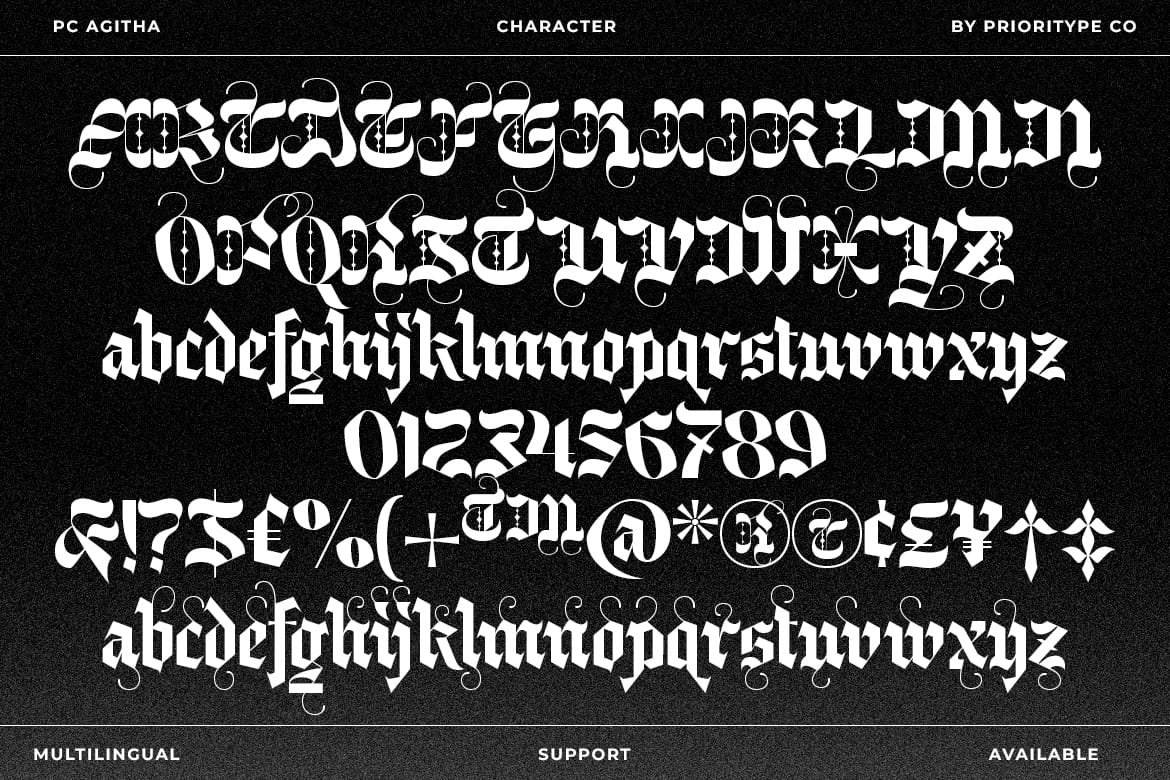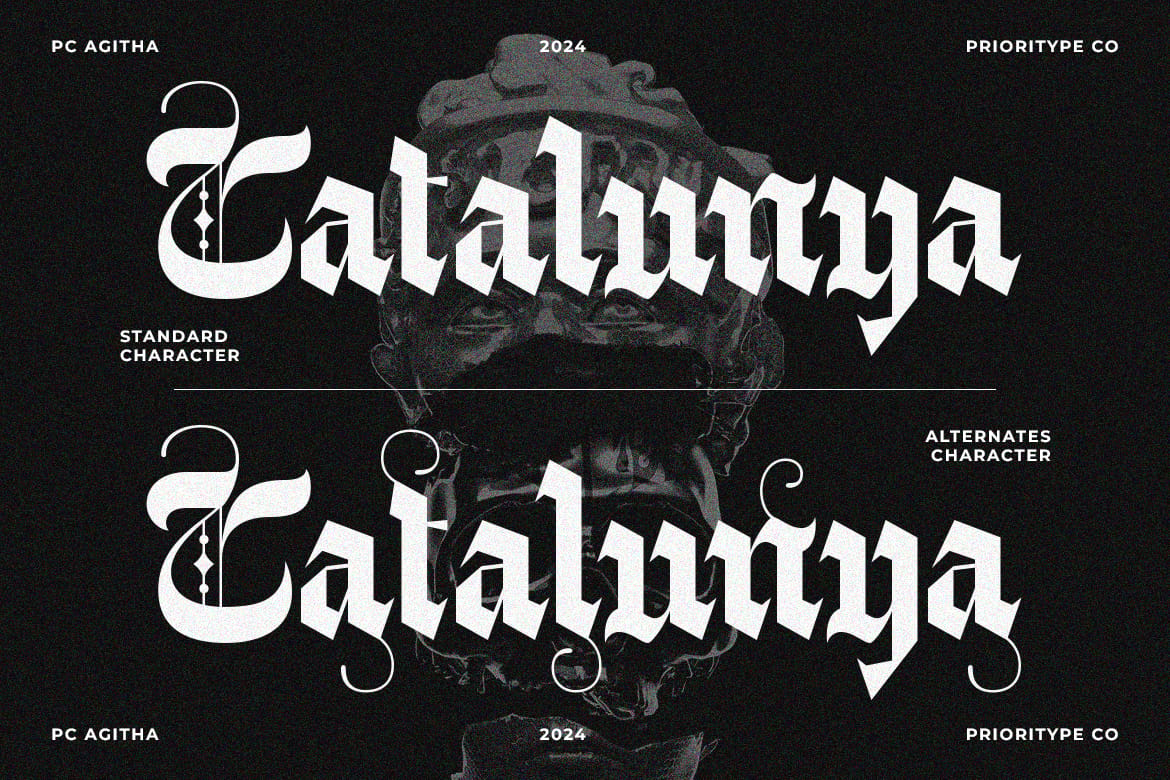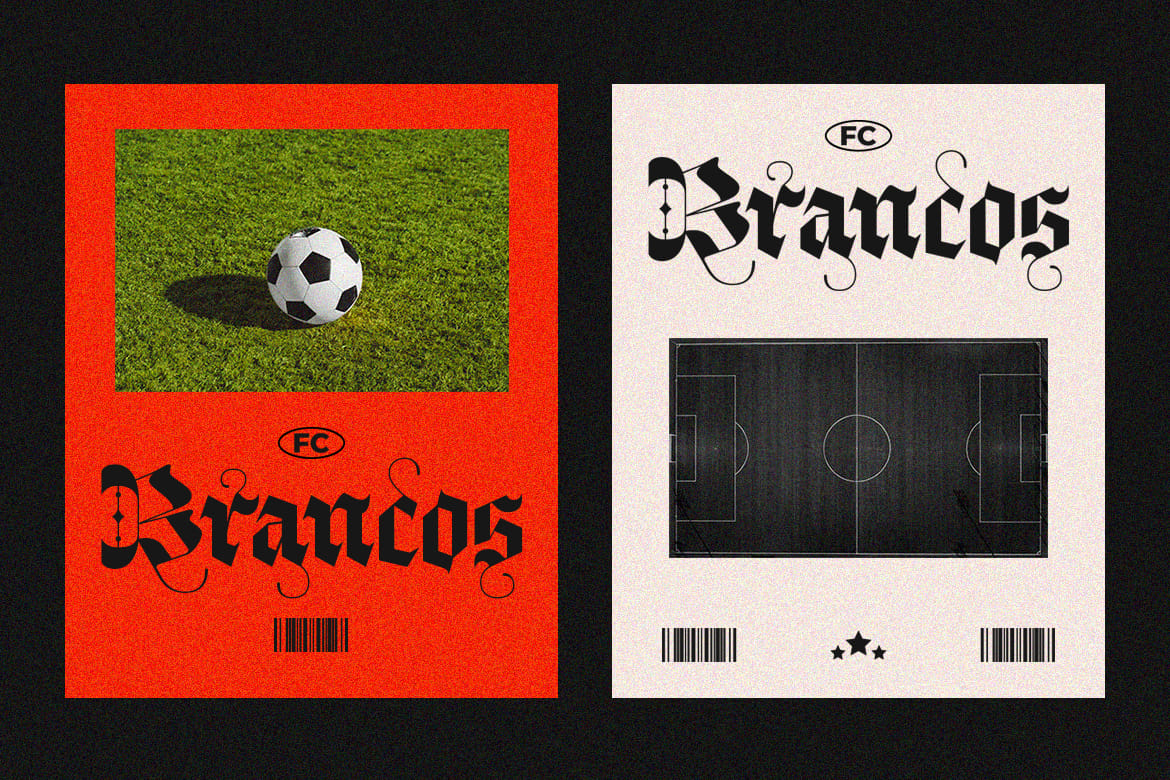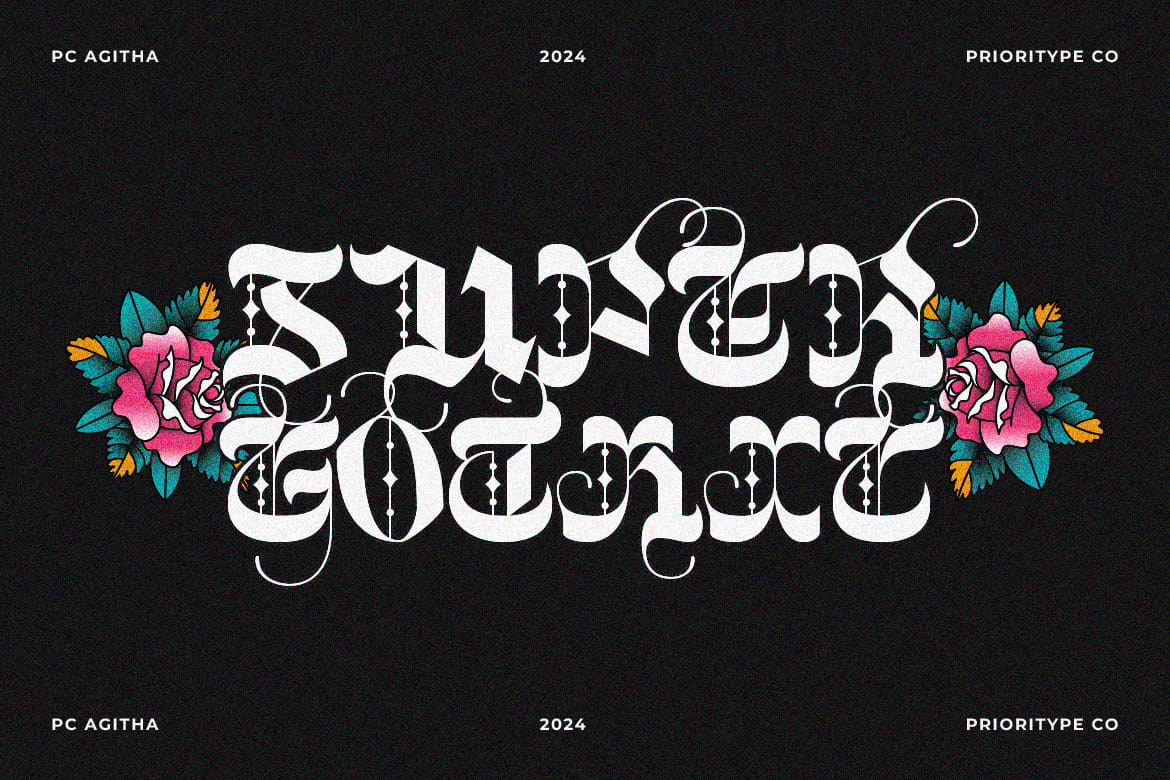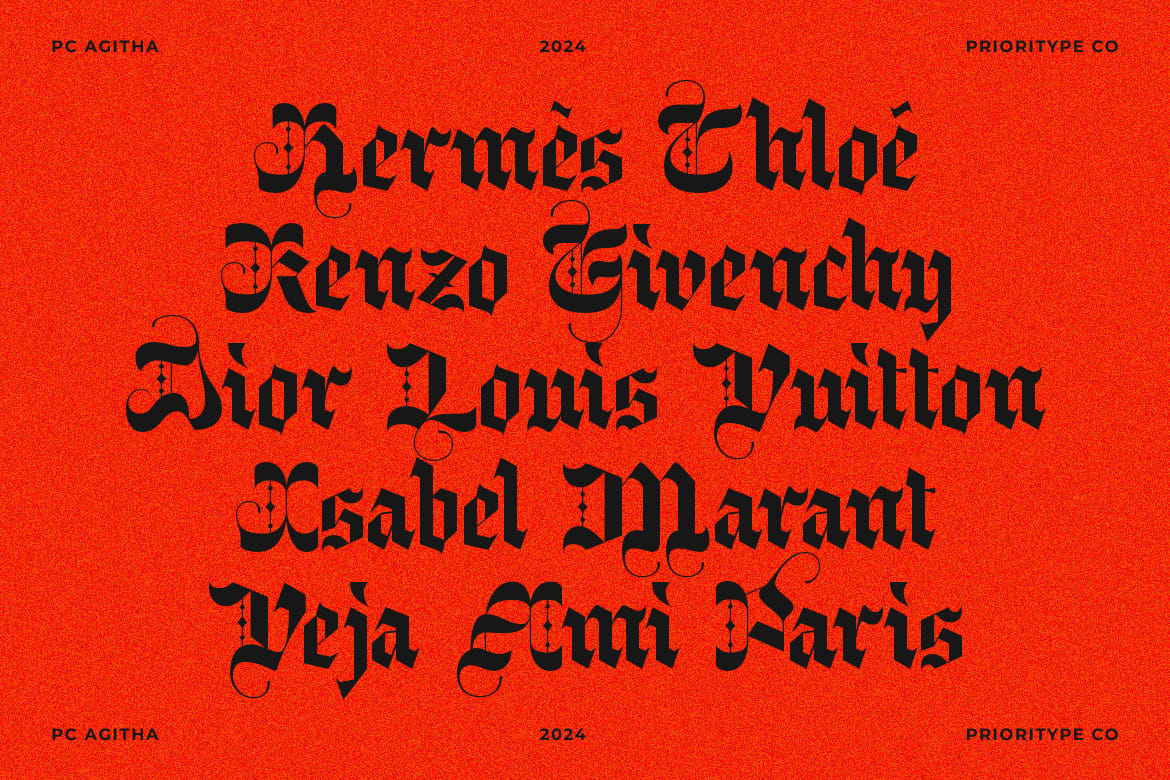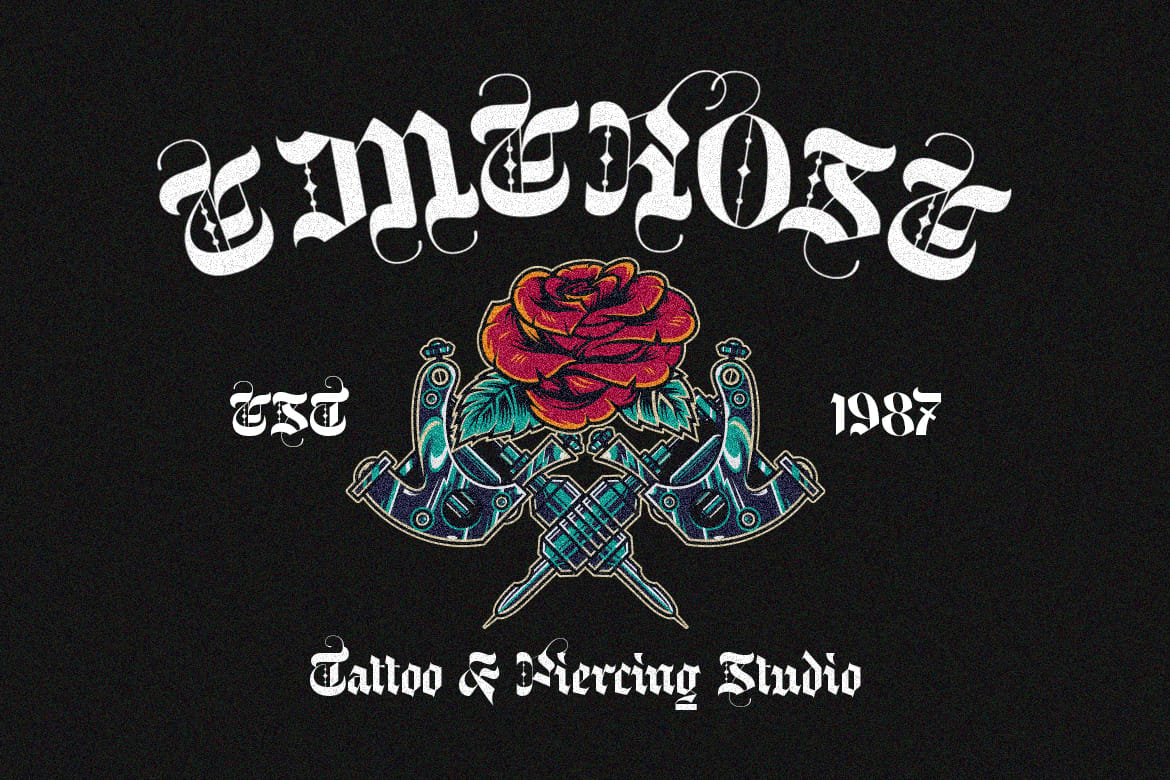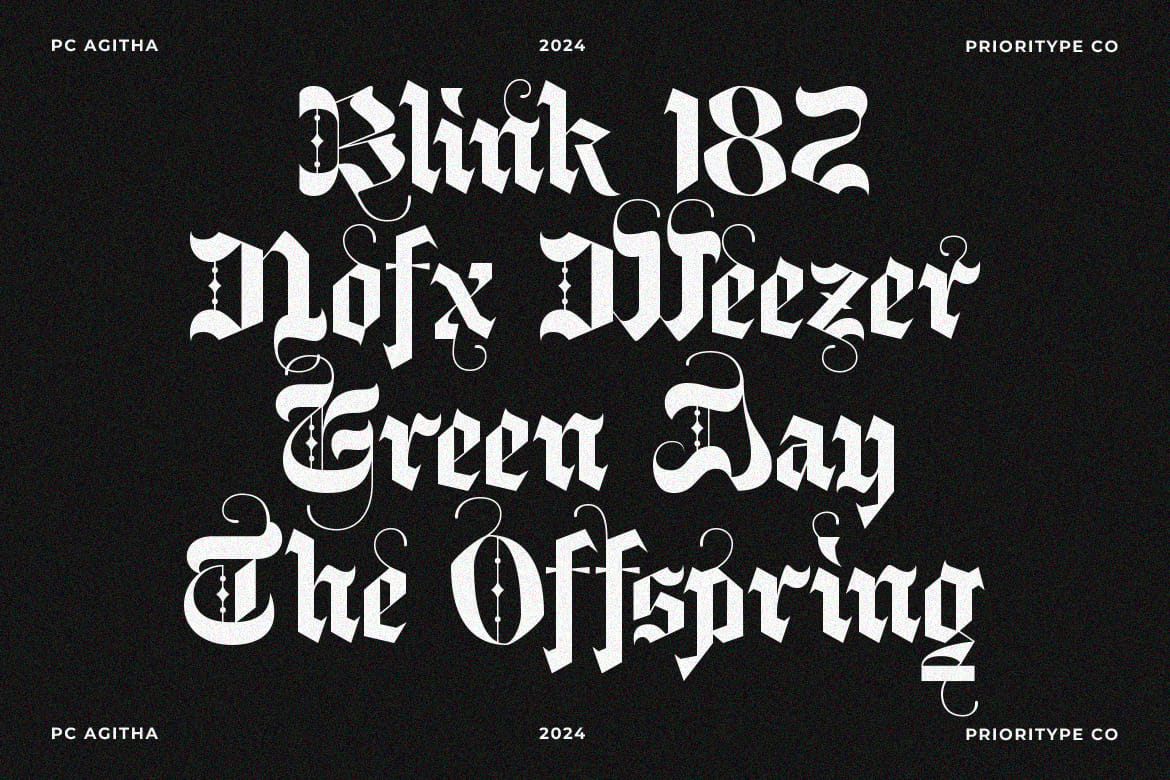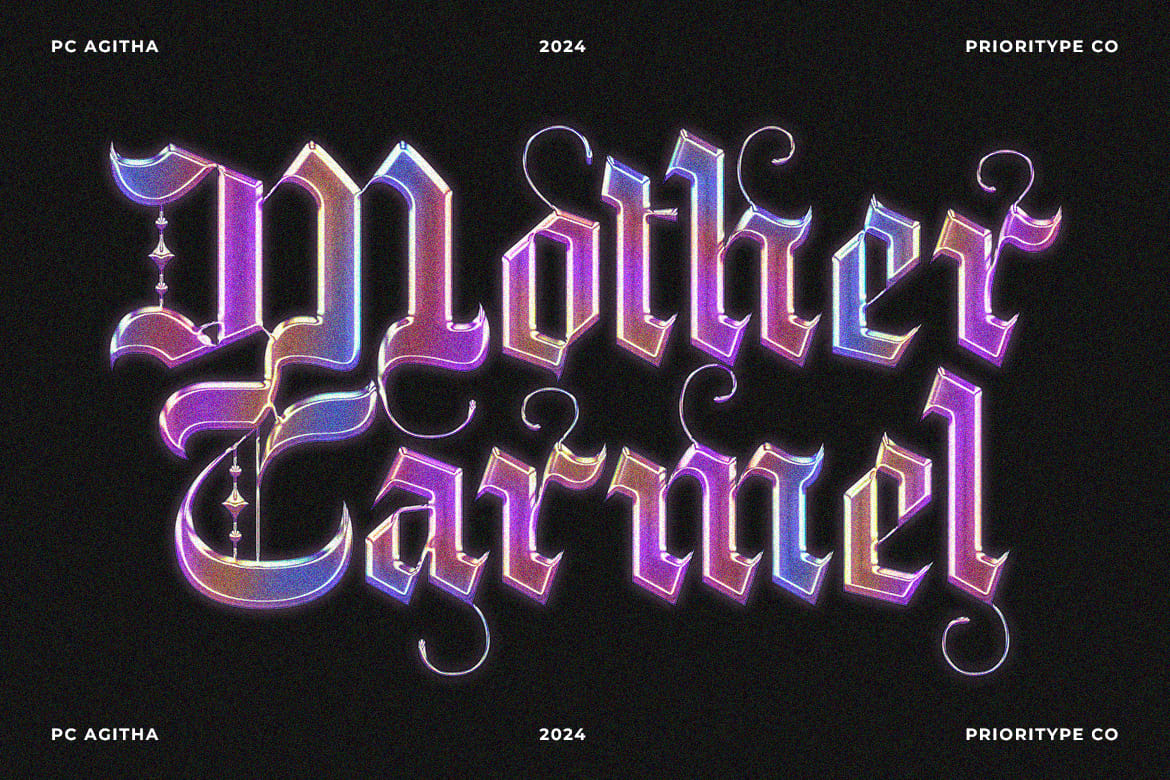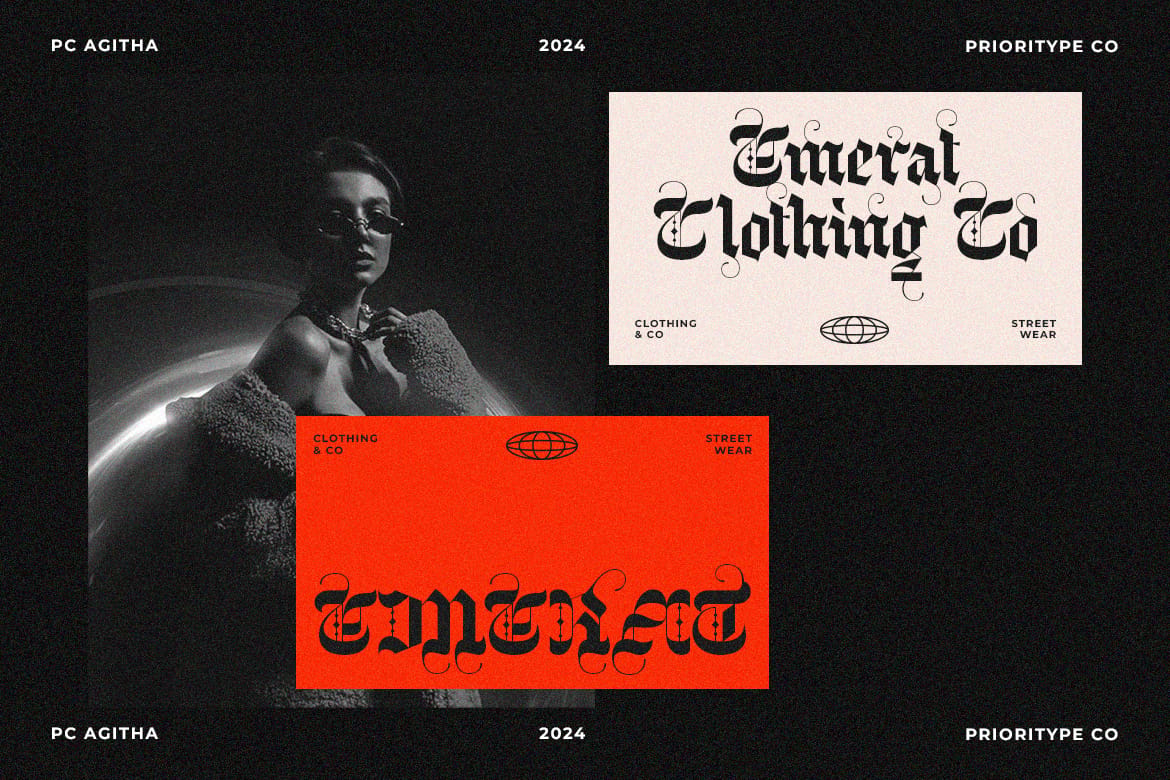
PC Agitha – Modern Blackletter Font
Unveiling our Modern Blackletter Font. Where tradition meets modernity in a sleek fusion. Elevate your designs with this versatile and sophisticated font, perfect for logos, posters, merchandise, and more. Embrace a timeless yet contemporary aesthetic that makes a bold statement in the digital age. Redefine tradition with our font designed for the modern era.
Features: Uppercase, Lowercase, Numeral, Punctuation, Multilingual, Alternates & Ligatures.
- Modern blackletter, tradition meets modernity
- Includes alternates and ligatures
- Perfect for logos and merchandise